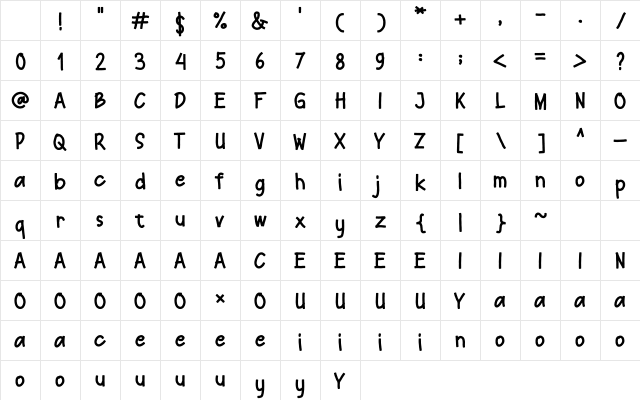
Complete Ngangguran Regular glyph index. Displaying only characters natively supported by Ngangguran Regular font.
Ngangguran is a composed and adaptable typeface that performs quietly and consistently across a wide range of design contexts.